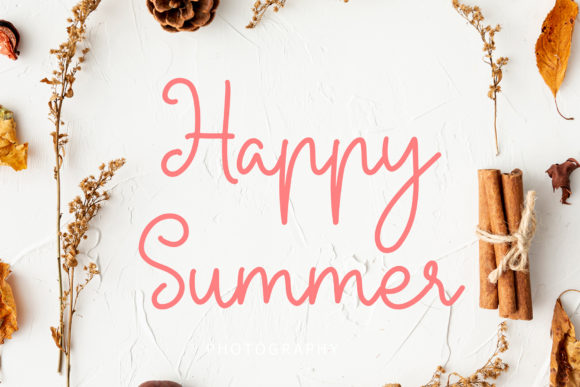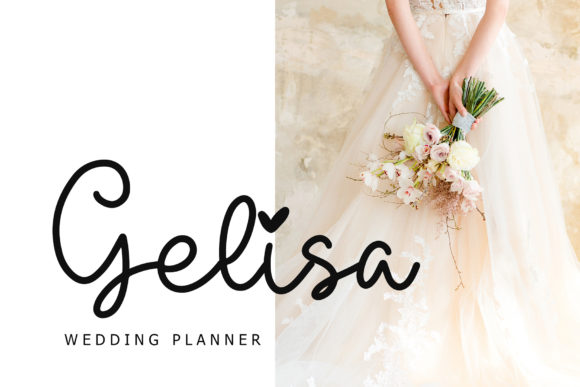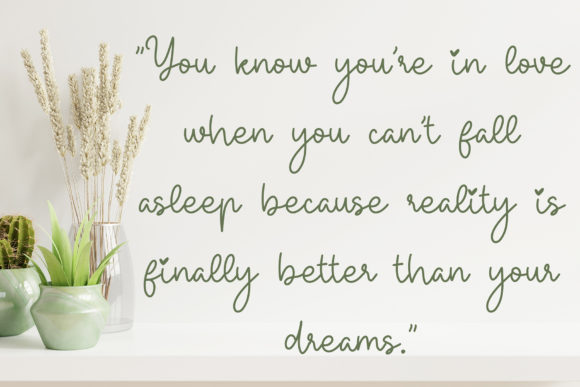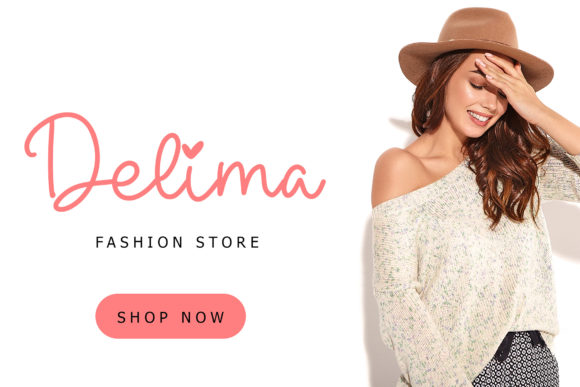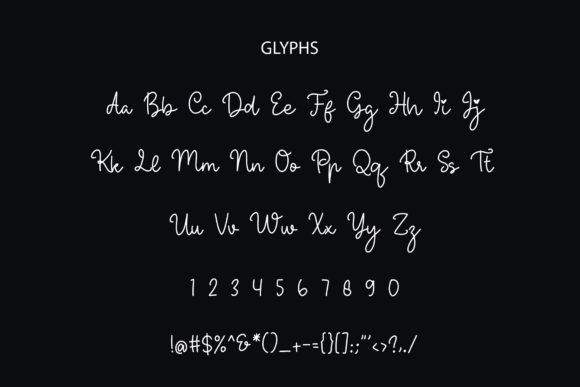
Introduction to Marimar Font
Marimar is an exciting calligraphy font with a monoline style.
Fall in love with its elegantly playful nature and use it to each of your favorite designs .
Key Features of Marimar Font
Why Choose Marimar Font?
Marimar Font offers exceptional quality and versatility, making it a valuable addition to your design toolkit. Whether you’re creating for personal projects or commercial use, Marimar Font delivers professional results.